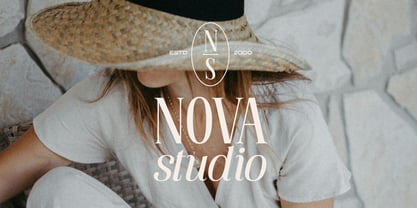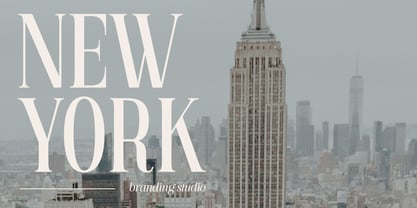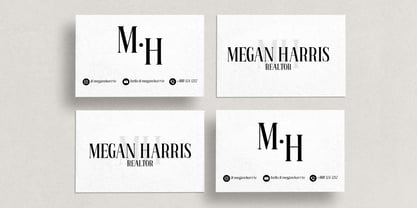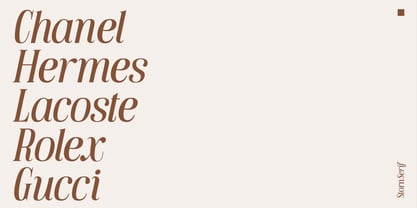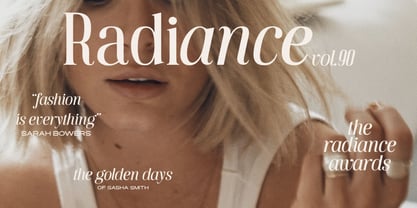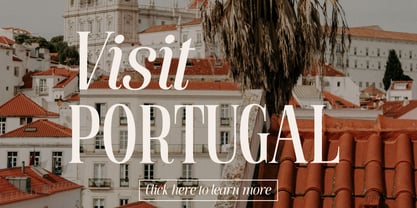
Die Schriftfamilie Storn wurde von Zak M entworfen und von Prestige Artsy Studio veröffentlicht. Storn enthält 4 Stile und Familienpaketoptionen. Mehr über diese Familie
Introducing Storn — a bold yet refined uppercase serif font that embodies sophistication, confidence, and timeless elegance. Perfectly suited for premium branding, editorial layouts, logos, invitations, and luxury packaging, Storn seamlessly blends modern precision with classic serif beauty. With its sharp contrasts, graceful curves, and perfectly balanced proportions, Storn is ideal for fashion, lifestyle, and high-end brands seeking a distinctive and powerful visual presence. Each letterform is meticulously designed to command attention while maintaining an air of effortless refinement. Storn is available in Regular, Regular Italic, Bold, and Bold Italic styles, providing versatility for dynamic typographic systems — from striking headlines to elegant logotypes and refined layouts. Whether you’re crafting a statement logo or an editorial masterpiece, Storn elevates your designs with unmistakable class and contemporary elegance.
Designer: Zak M
Foundry: Prestige Artsy Studio
Storn